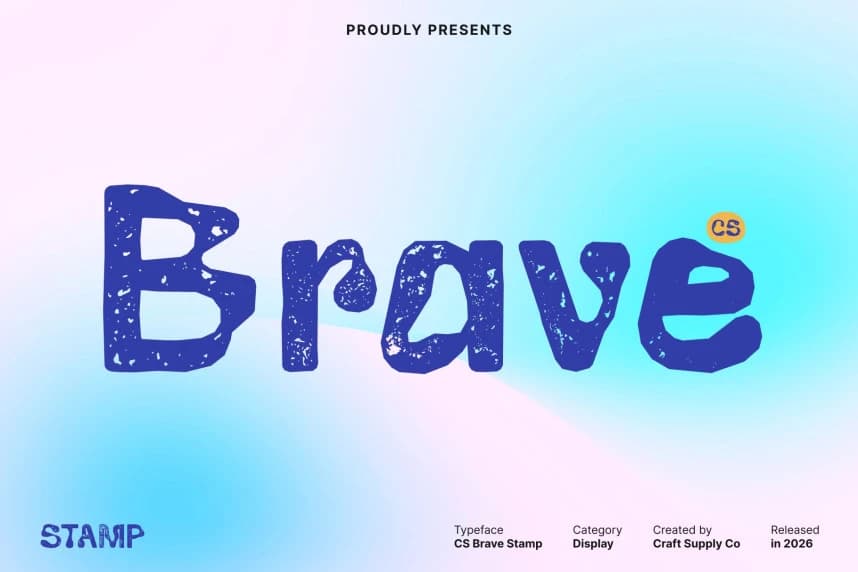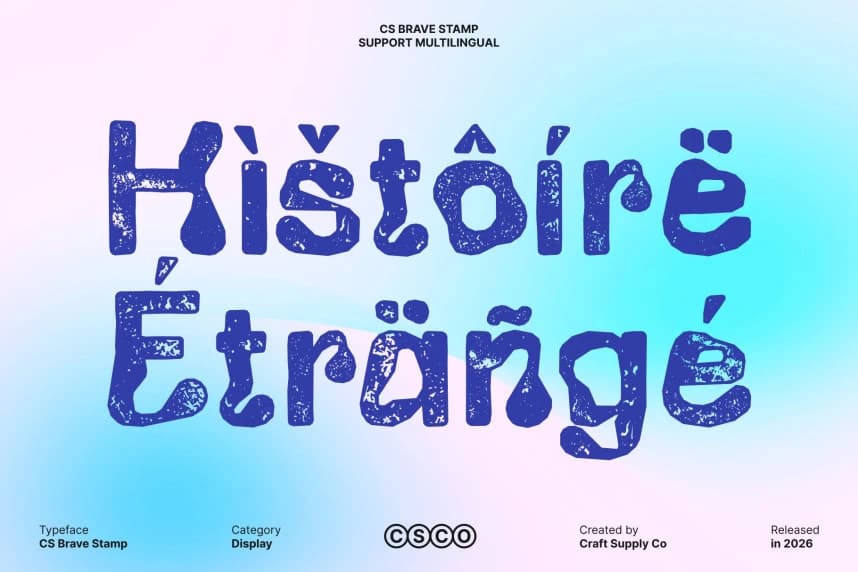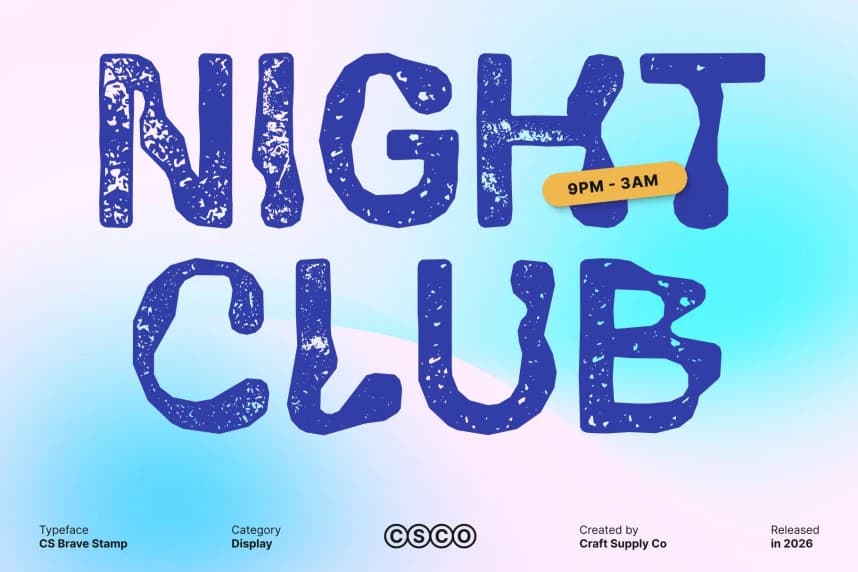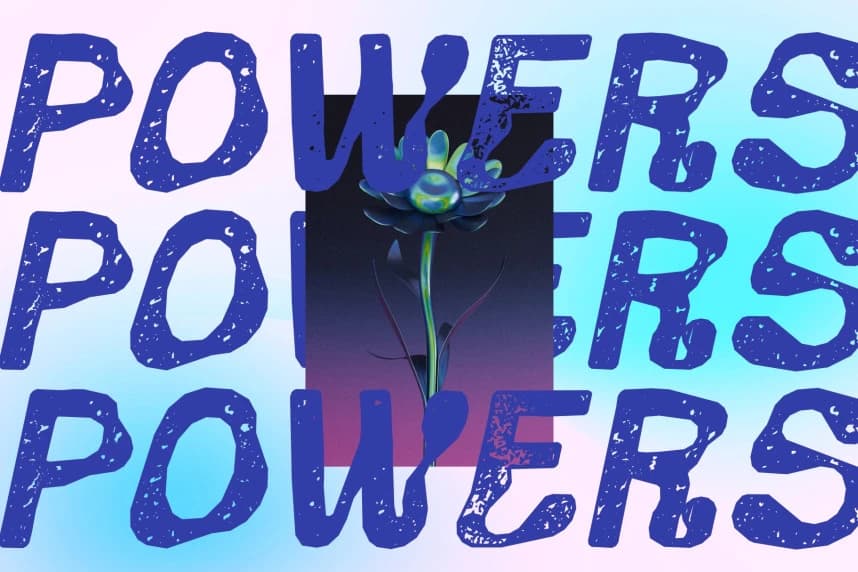
CS Brave Stamp Font
CS Brave Stamp Font – Trippy Psychedelic Font with Raw Textured Energy Psychedelic Vibrance with a Stamped Edge This amplifies its trippy, 60s-inspired aesthetic with a gritty stamped texture that adds depth and analog character.